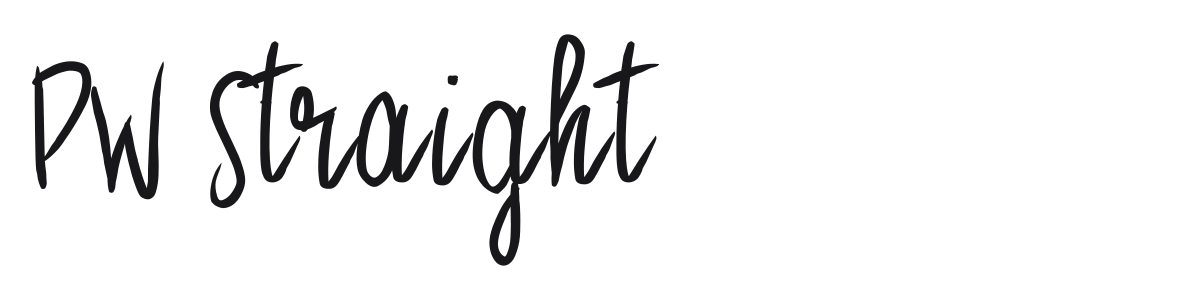
PW Straight
PW Straight is a thin, casual handwritten face from Peax Webdesign that captures the feel of quick pen-on-paper writing with a steady hand. The lightweight strokes keep things personal and understated, with just enough irregularity to feel authentic rather than manufactured. A good fit for signatures, personal branding, invitations, or anywhere you want readable handwriting without any visual heaviness.